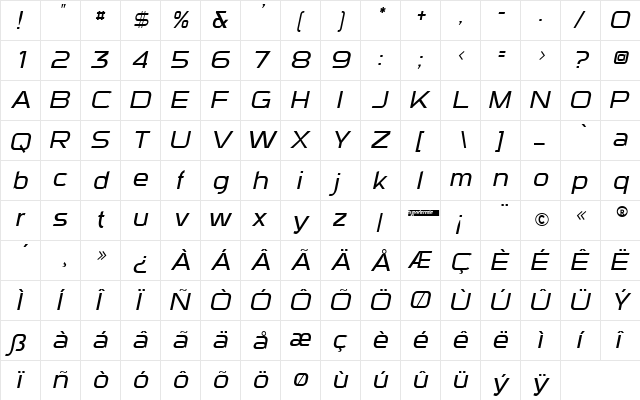
Sui Generis Light Italic
Design Context for Sui Generis Light Typeface
Sui Generis Light is a composed and adaptable typeface that performs quietly and consistently across a wide range of design contexts. The slanted form adds forward momentum and visual energy. The delicate stroke weight brings airiness and refinement to layouts.
Pro Tip: Use Sui Generis Light for emphasis, pull quotes, and subheadings where its slanted energy can add rhythm to the layout.